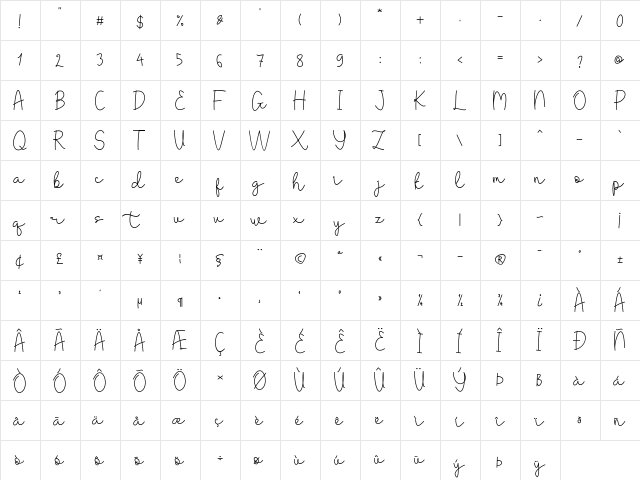
battilla Regular
| Designer | Nasruni Fajarita |
Design Context for battilla Typeface
battilla is a composed and adaptable typeface that performs quietly and consistently across a wide range of design contexts.